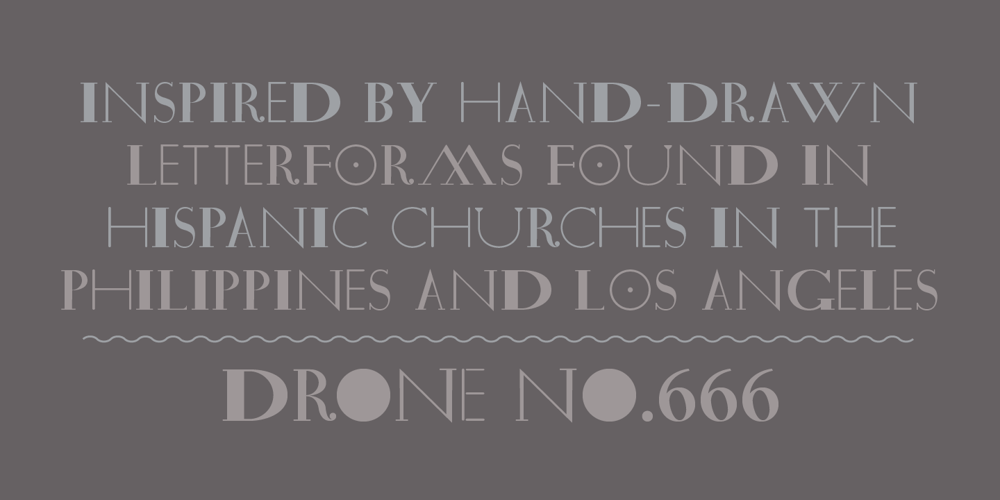
Drone Font Family was designed by Jonathan Barnbrook and published by Barnbrook Fonts. Drone contains 2 styles and family package options. Drone is a deliberately misproportioned typeface, inspired by hand-drawn lettering found in Spanish/Hispanic Catholic churches in the Philippines and Los Angeles. These naive letterforms appeared to be ‘copies of copies’ – and in aiming to recreate the beauty of the Vatican and the Sistine Chapel they instead created something unique with its own charm and beauty. As a curious aside, the forms are reminiscent of those found in 16th century English calligraphy too. Drone is available in two styles: No.666 and No.90210.